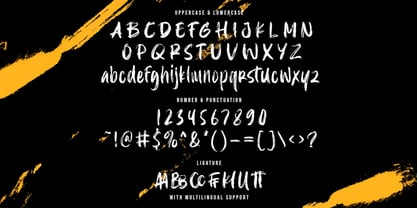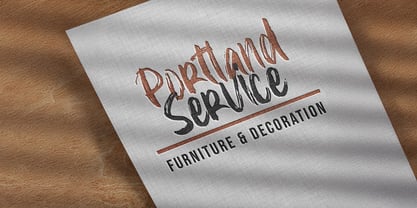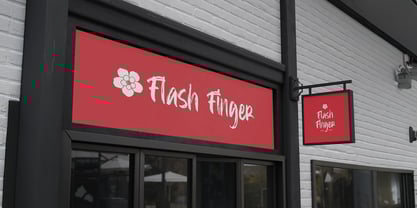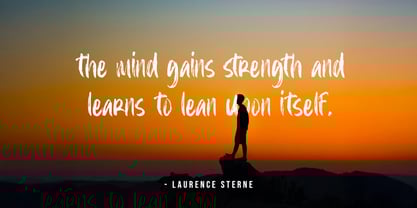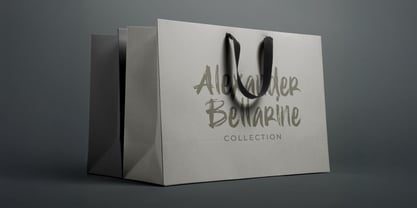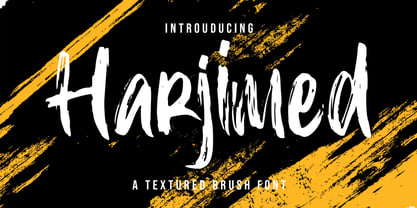
The Harjimed Font Family was designed by Virgiawan Listanto and published by Stringlabs Creative Studio. Harjimed contains 1 styles.
Harjimed is a powerful and authentic textured brush font that captures a raw, handmade feel. The prominent, gritty texture of its bold strokes gives it a unique and rustic character, making it perfect for projects that demand a strong, personal touch. It's a versatile font that shines in a variety of creative applications, from creating standout logos and eye-catching t-shirt designs to dynamic posters and social media graphics that feel genuinely handcrafted.